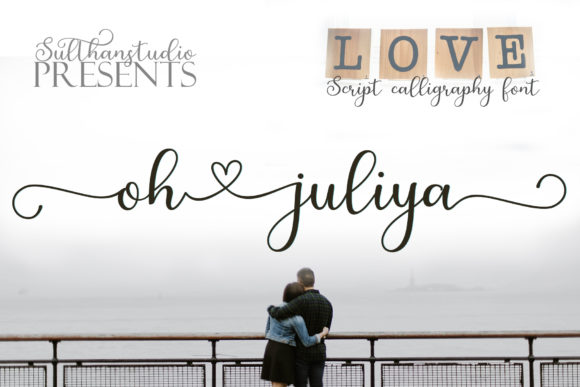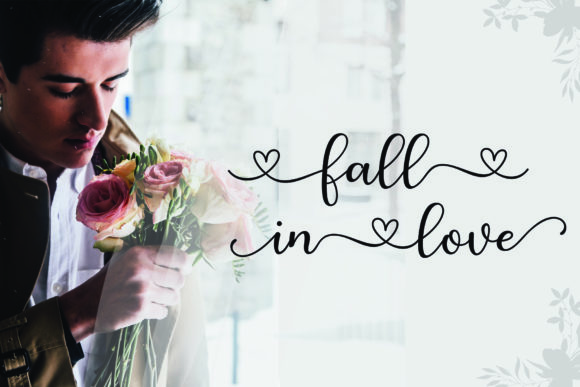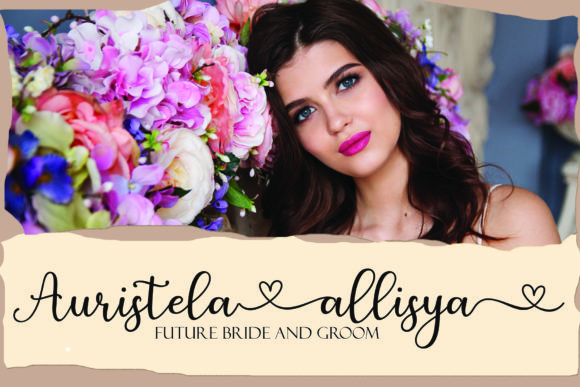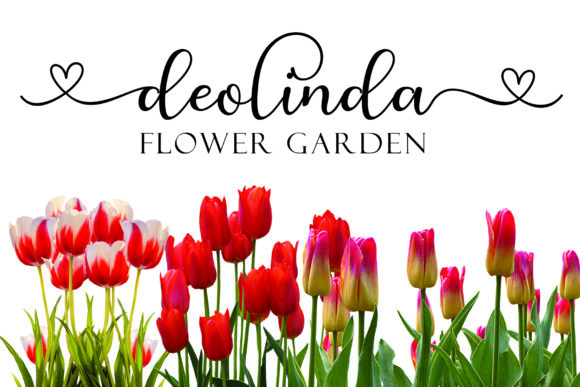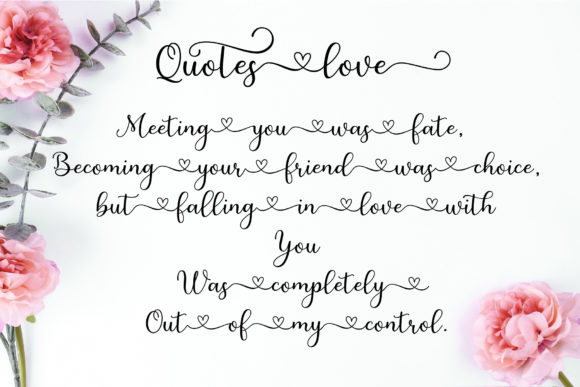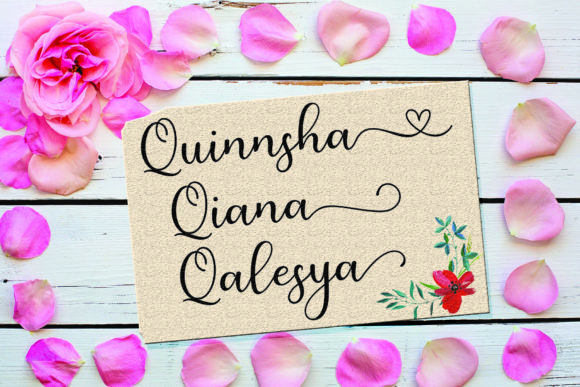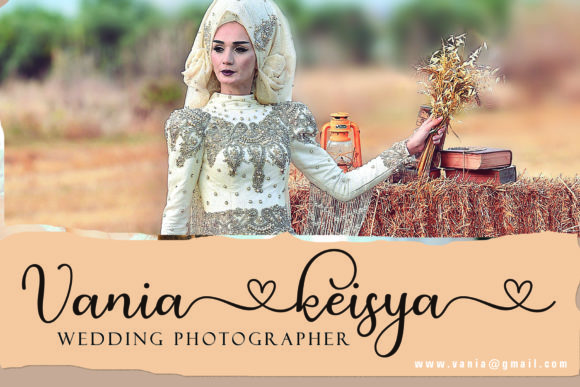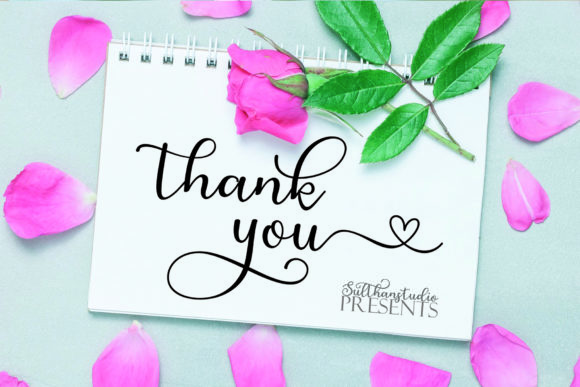
Oh Juliya Font
About Oh Juliya Font
Oh Juliya is a new cute calligraphy font with a hearts that can be connected. It can add a romantic touch to any crafting project!